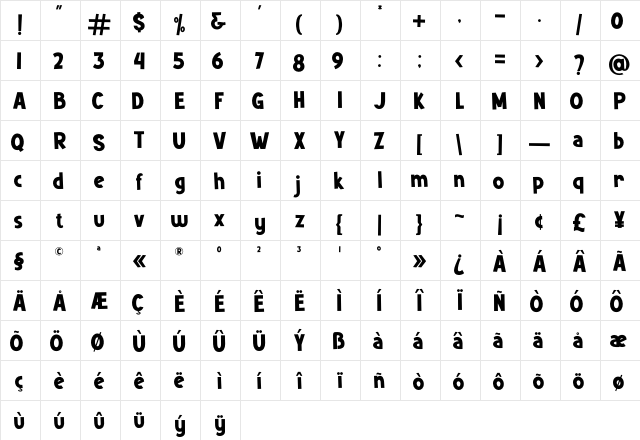
Mutchin Regular
Design Context for Mutchin Typeface
Mutchin is a composed and adaptable typeface that performs quietly and consistently across a wide range of design contexts.